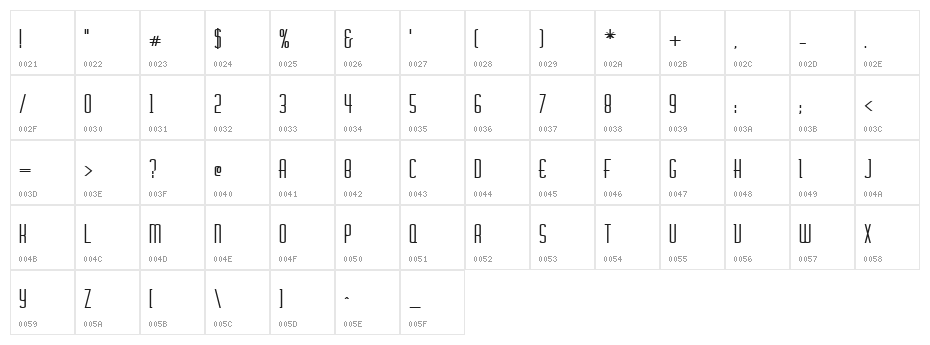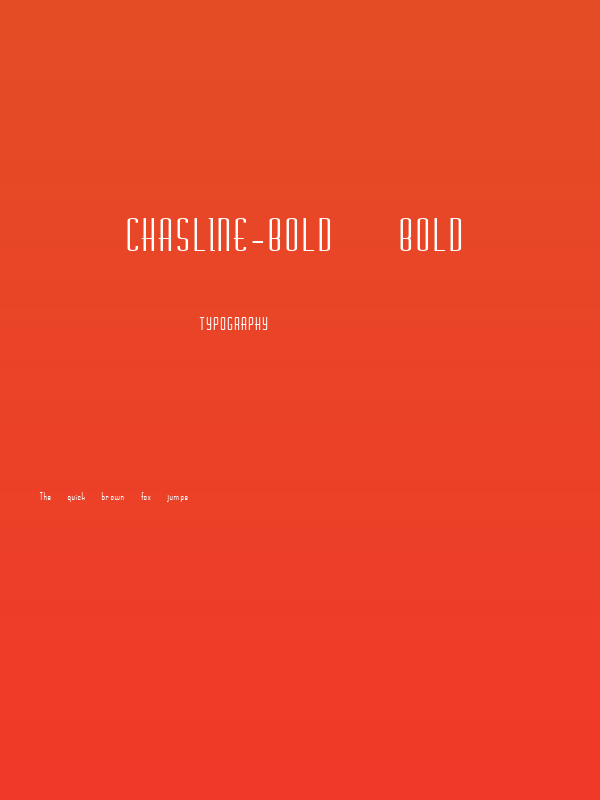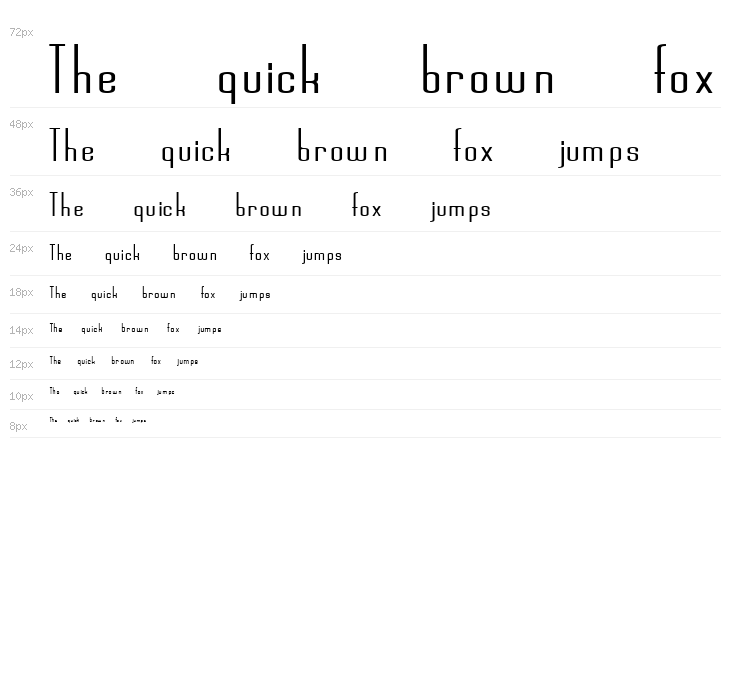
Chasline-Bold Bold Font
Chasline-Bold Bold Description
This font features a modern, geometric design with tall, narrow letterforms that convey a sense of elegance and sophistication. The characters are constructed with clean, straight lines and subtle curves, creating a sleek and streamlined appearance. The uppercase letters are particularly elongated, giving the font a distinctive and stylish look. The lowercase letters maintain the same geometric aesthetic, ensuring consistency throughout the typeface. The numerals and special characters are designed to match the overall style, making this font versatile for various applications.